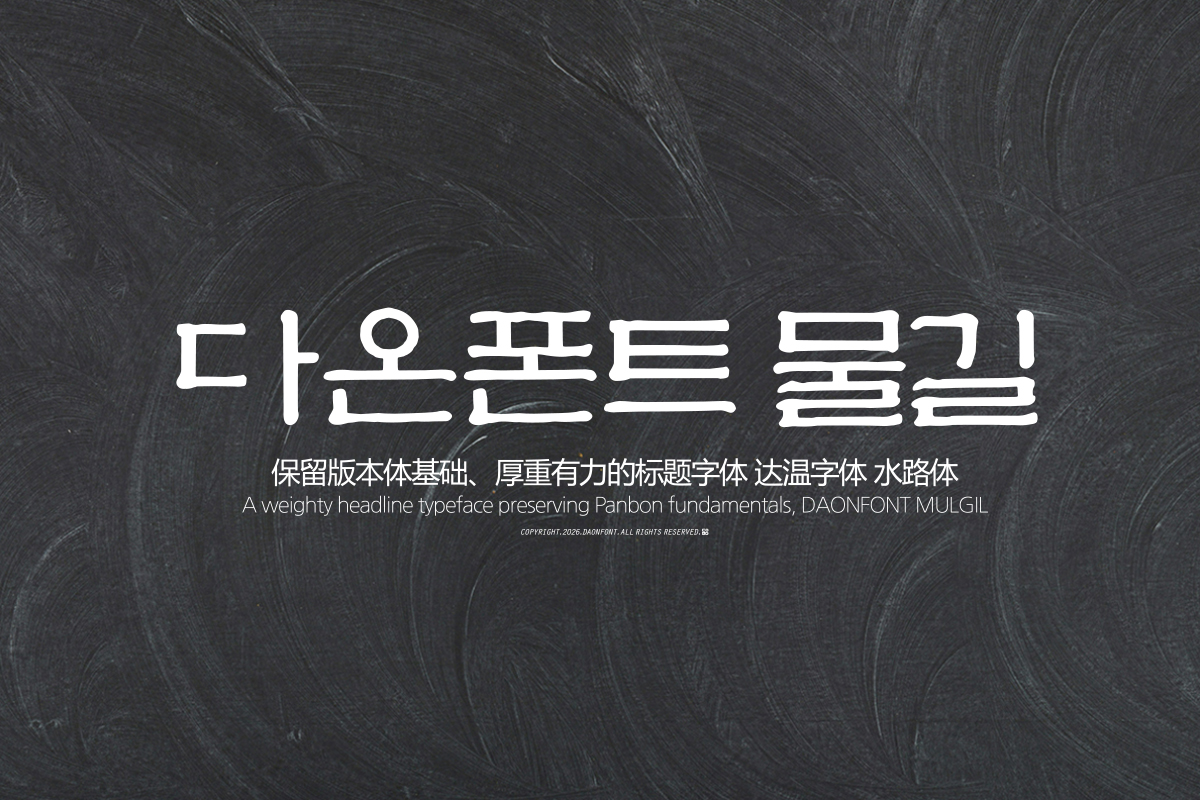
DAON MULGIL GULGEUN
'MULGIL' is a Hangul typeface that combines the structural beauty of traditional block script with modern readability, and is available in two versions based on thickness.